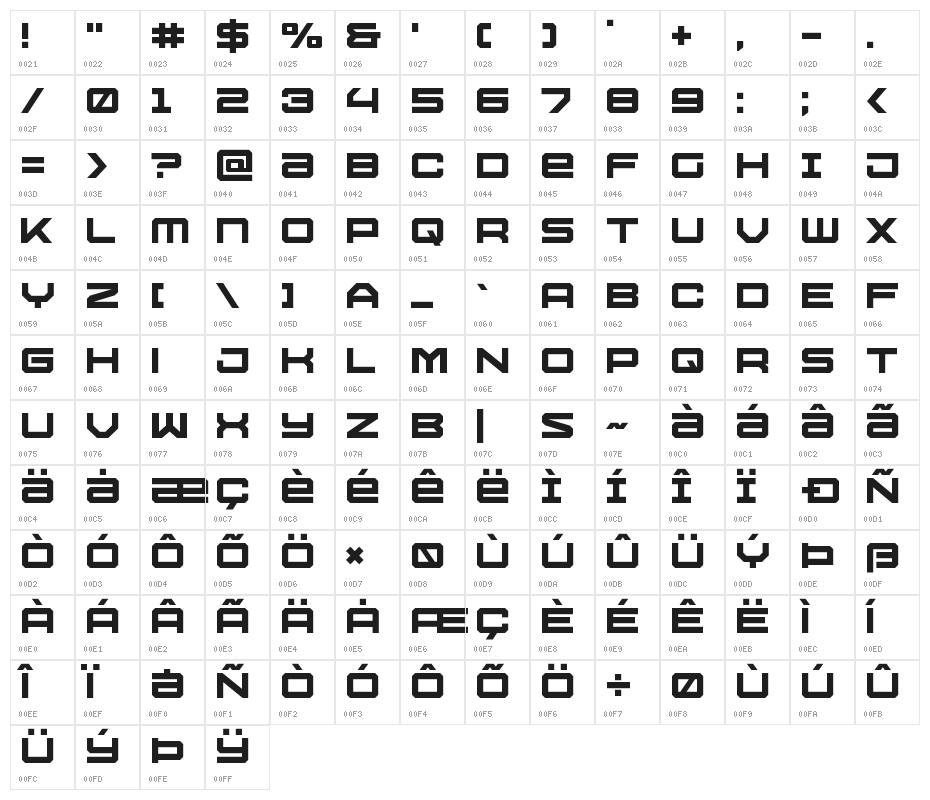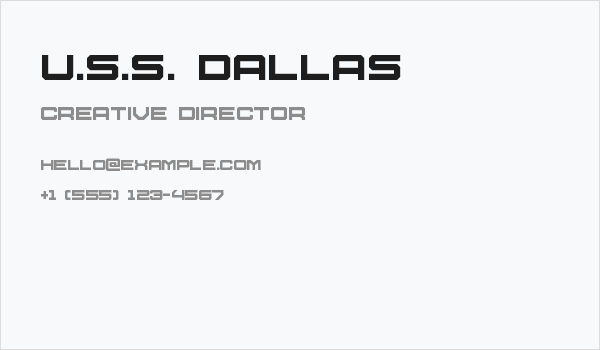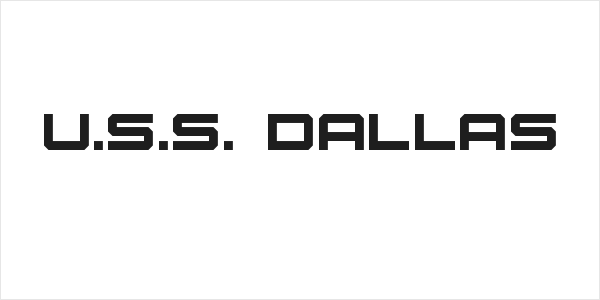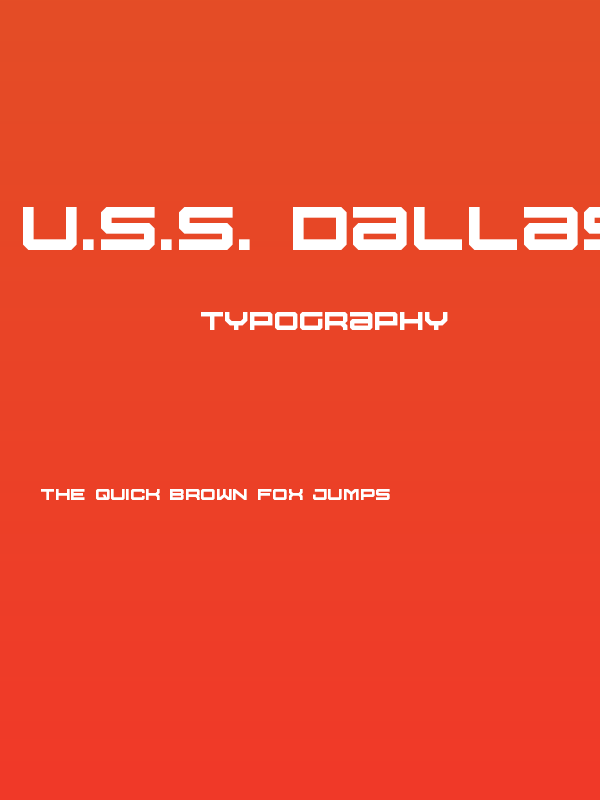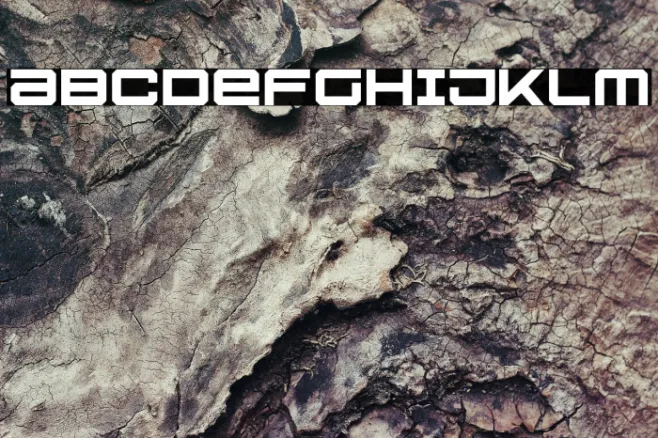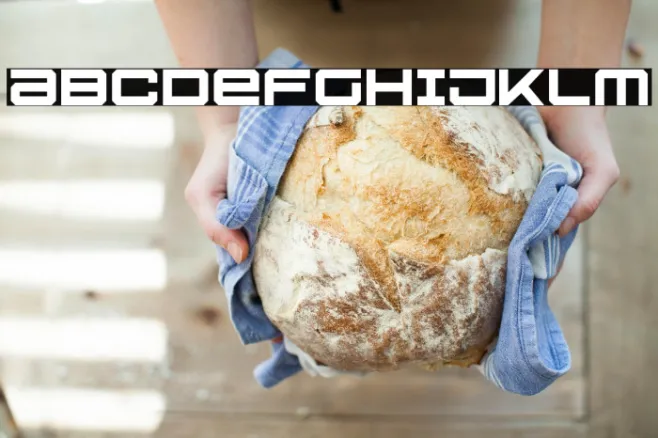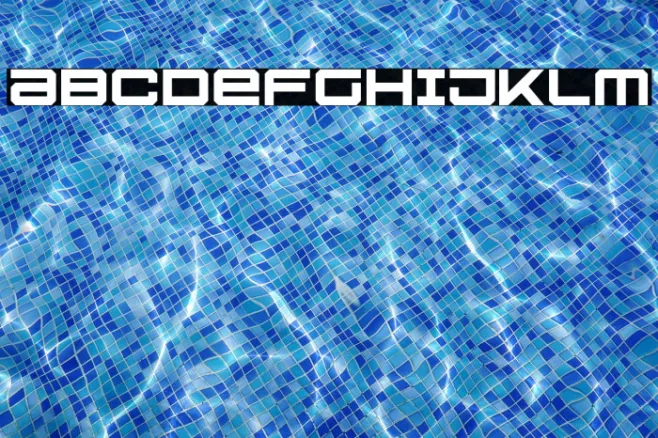
U.S.S. Dallas Font
U.S.S. Dallas Description
This font features a bold, geometric design with a futuristic and technical aesthetic. The characters are constructed with straight lines and sharp angles, giving them a mechanical and structured appearance. The uppercase and lowercase letters maintain a consistent height, contributing to a uniform and cohesive look. The numerals and special characters follow the same design principles, ensuring a seamless integration across all glyphs. The font's style is reminiscent of digital or sci-fi themes, making it suitable for projects that require a modern and edgy touch. Its boldness and distinct character shapes make it highly legible and impactful, ideal for attention-grabbing headlines or branding materials.